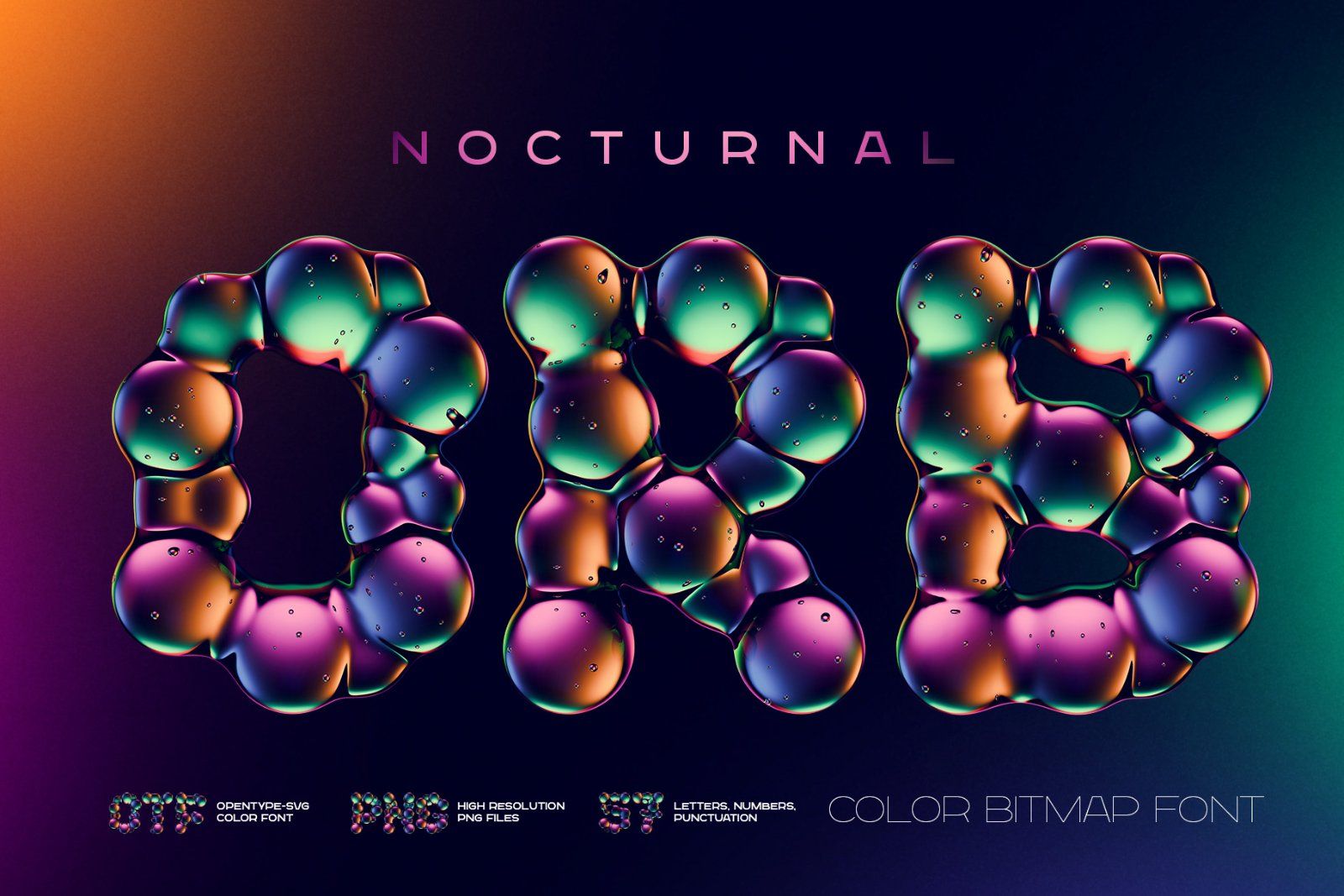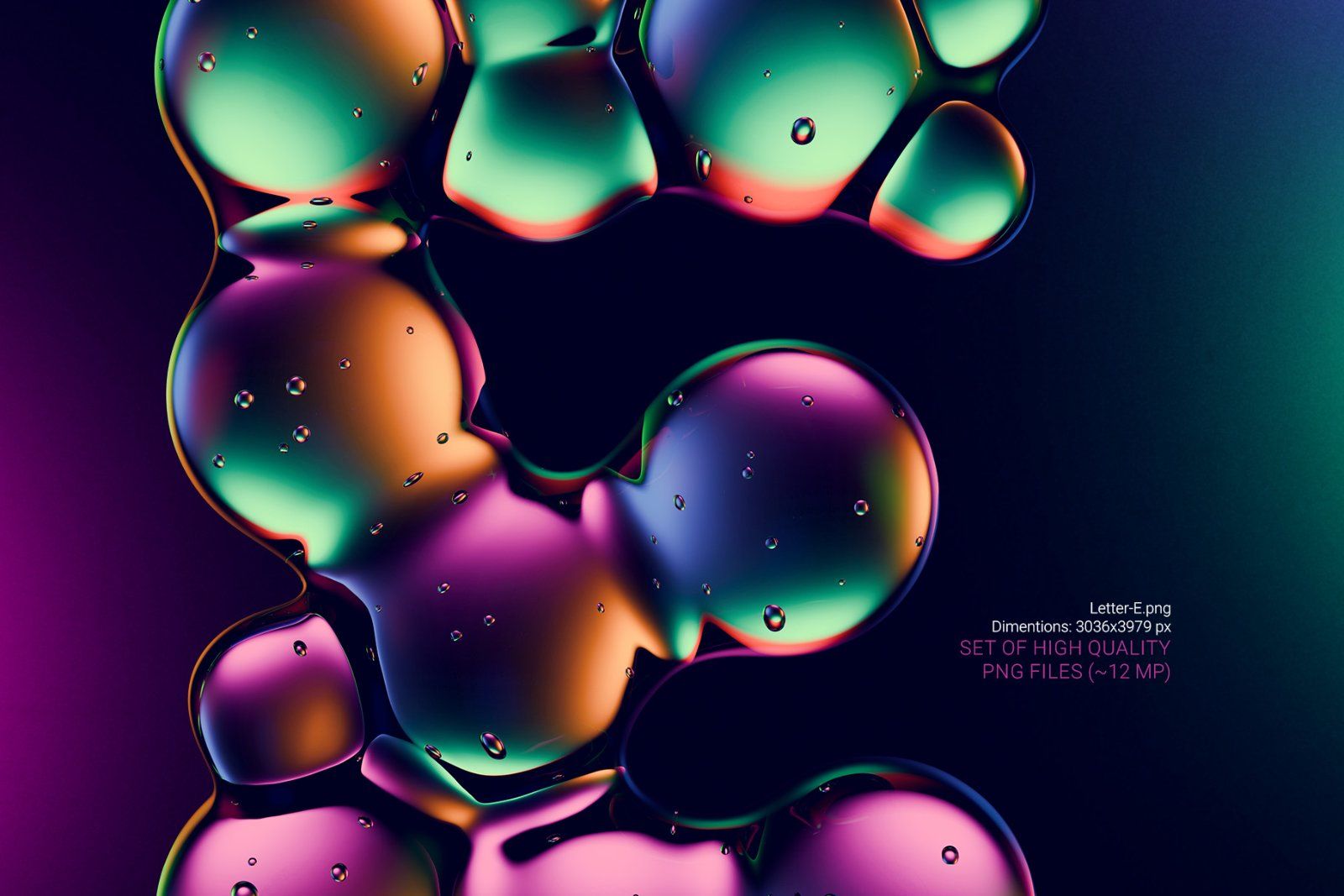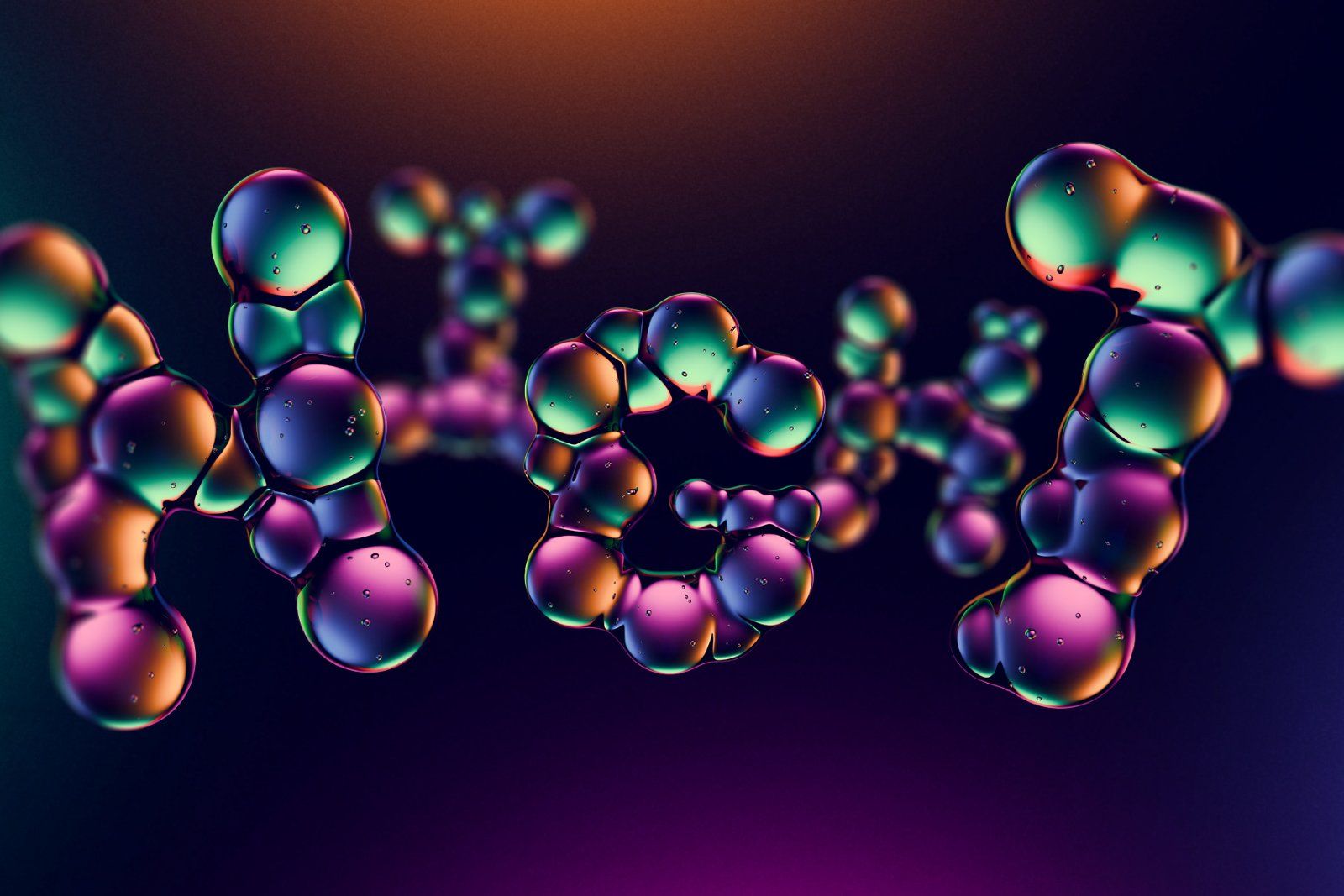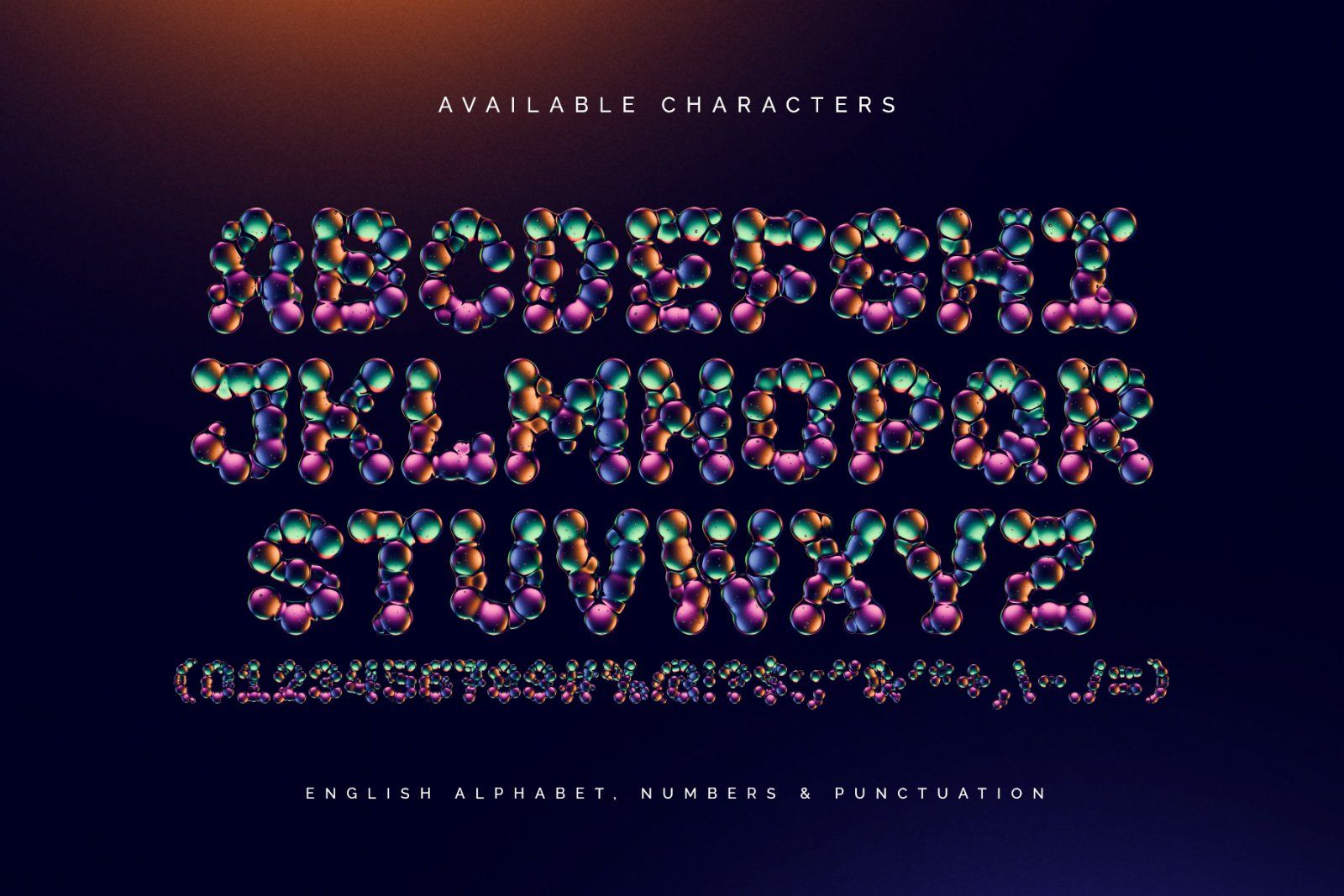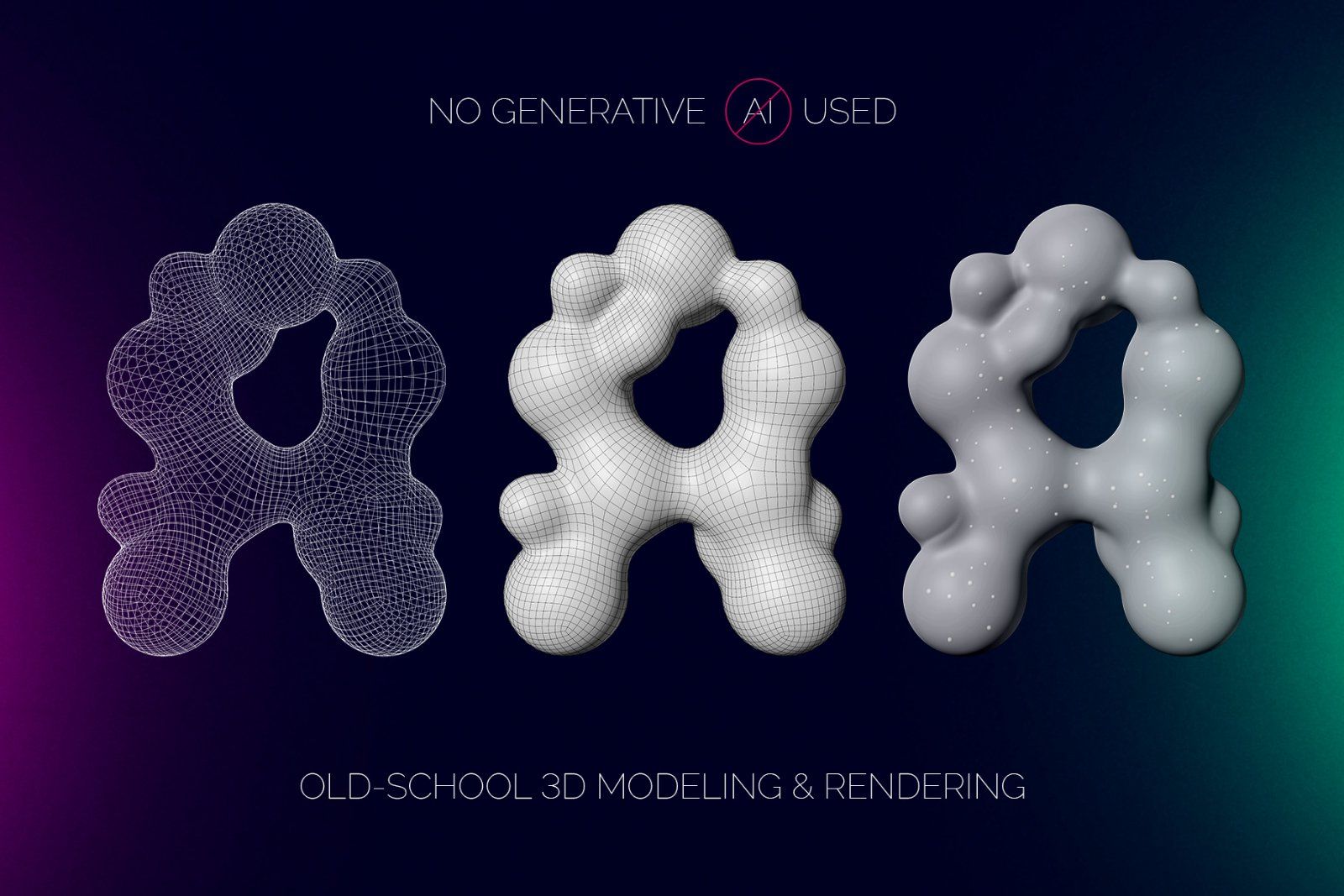
Introducing Nocturnal ORB, a colorful and creative font set. This collection features a 3D-rendered blob shape illuminated by bright night lights. Its glowing, fluid letters inject a futuristic, high-energy vibe into any digital design or poster layout.
Nocturnal ORB is a color bitmap OpenType-SVG font, usable just like any standard OTF font. Additionally, the set includes high-resolution PNG files with transparent background (average resolution is 12 megapixels).
Consider that the font supports only the English language and basic punctuation. Be sure to review the included screenshot for a complete list of available characters.